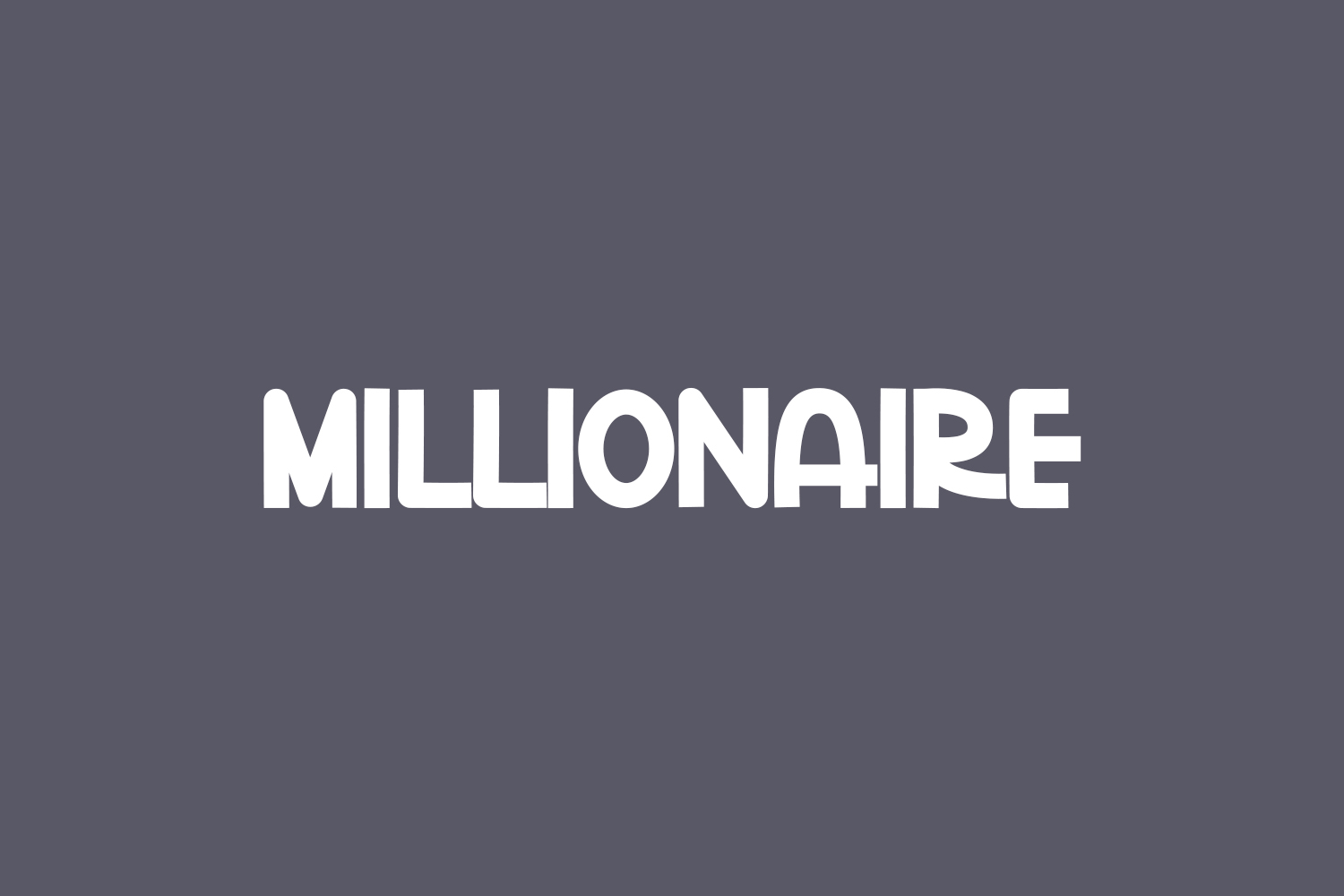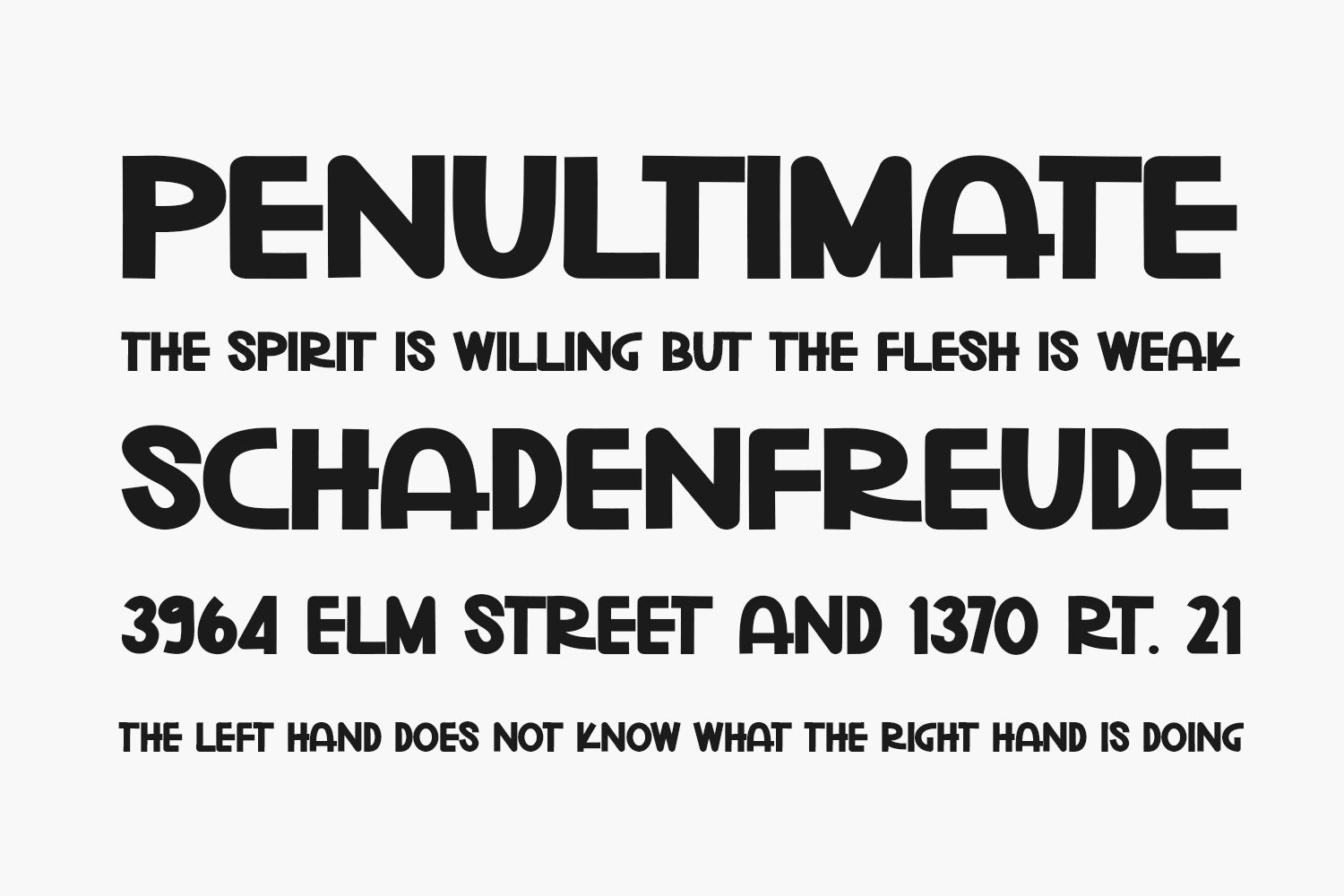
Millionaire Free Font, a sleek sans-serif font, is an ideal choice for both traditional media and web applications. Crafters and graphic artists will appreciate its versatility. With its playful aesthetic, Millionaire lends itself well to creative projects, whether you’re designing inspirational wall posters or conveying your brand’s message. Millionaire Free Font is free for personal use only. Please purchase the full version for commercial use.